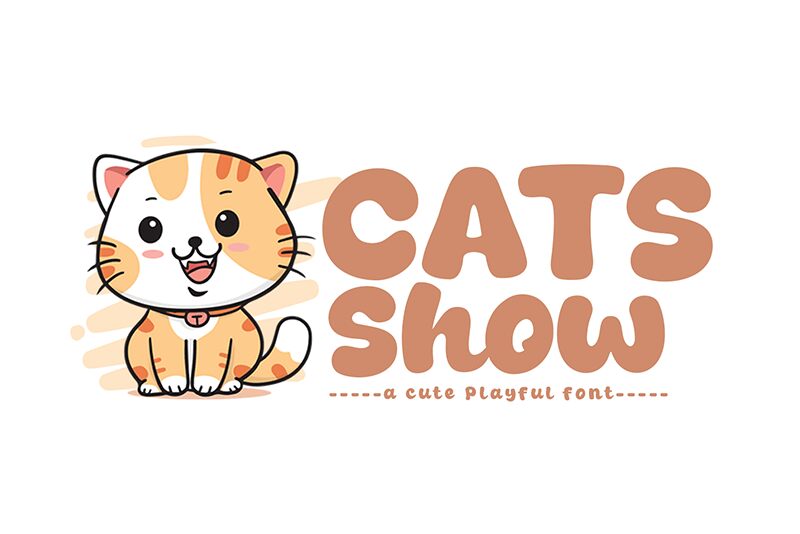
Cats Show
Cats Show font by Khurasan is a fun bold cartoon display typeface with a modern feel. Its curvy characters and playful vibe create casual yet riveting typographic pieces that pay homage to this free font’s core inspiration: Cats. This rounded alphabet sticks out on any visual it is used in, marking the viewer’s eyes in an outstanding twist.
Use it for posters, children’s books covers, video games cover designs, cartoon artworks, shopping bags for kids’ stores, stationery designs and much more of the like. The set can also be used for coloring pages dedicated to young learners who might be intrigued to see how playful typography can actually get.